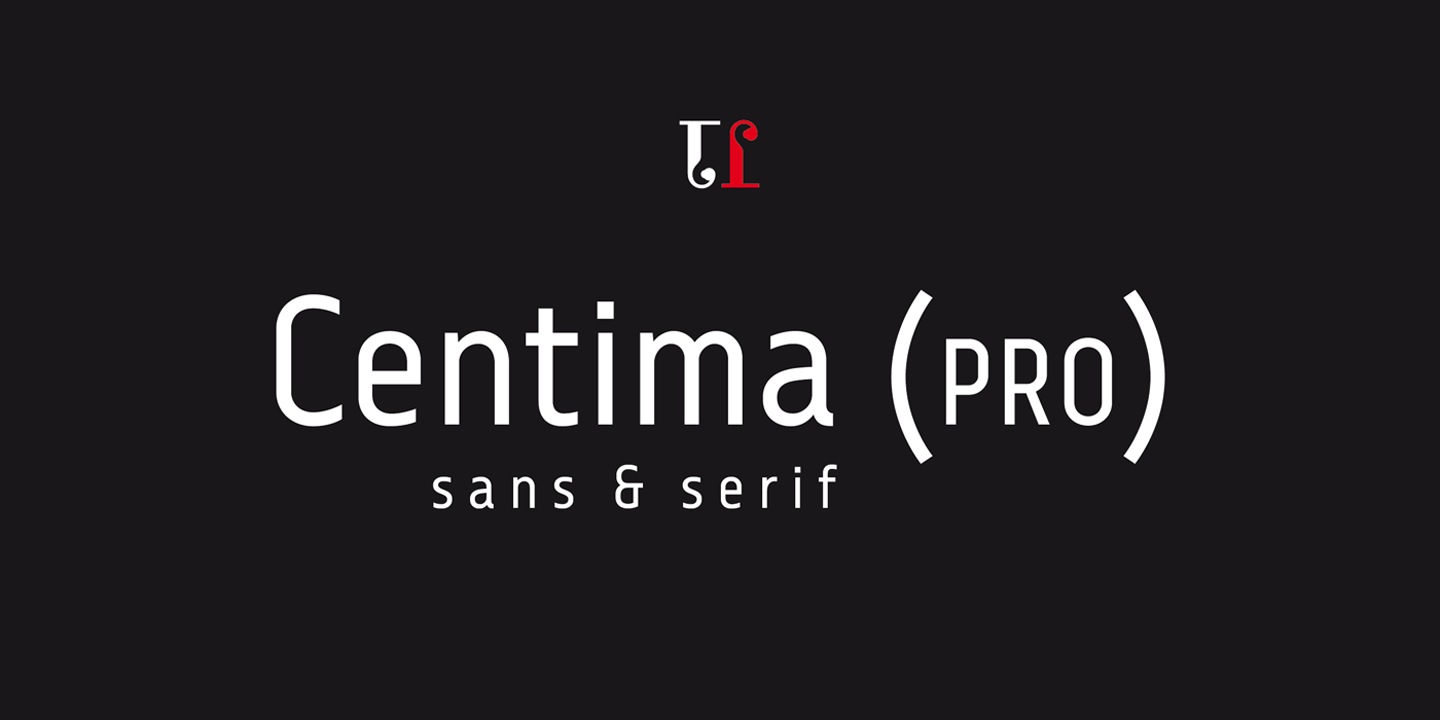
This professional typeface is perfect for corporate presentations, financial institutions, business consulting firms, legal documents, annual reports, professional services, banking applications, enterprise software, executive communications, boardroom materials, strategic planning documents, investment portfolios, and premium business branding. The font's authoritative design makes it ideal for projects that demand professional credibility, corporate excellence, and executive-level sophistication.
Centima Pro Font is exciting because it embodies executive authority and corporate excellence through its meticulously crafted letterforms and professional character structure. The font's balanced proportions and confident strokes create an atmosphere of reliability, competence, and business leadership, making it perfect for brands that want to convey expertise, trustworthiness, and market dominance. Its professional appearance ensures instant credibility while maintaining exceptional readability across various corporate applications.
The Centima Pro Font family includes comprehensive business variations: Light Executive, Regular Corporate, Medium Professional, Bold Authority, and Black Leadership weights, each available in standard and italic versions. Special enterprise editions feature advanced OpenType features, professional numerals, and corporate symbols that enhance the font's business appeal, providing designers with powerful tools for creating sophisticated corporate communications.